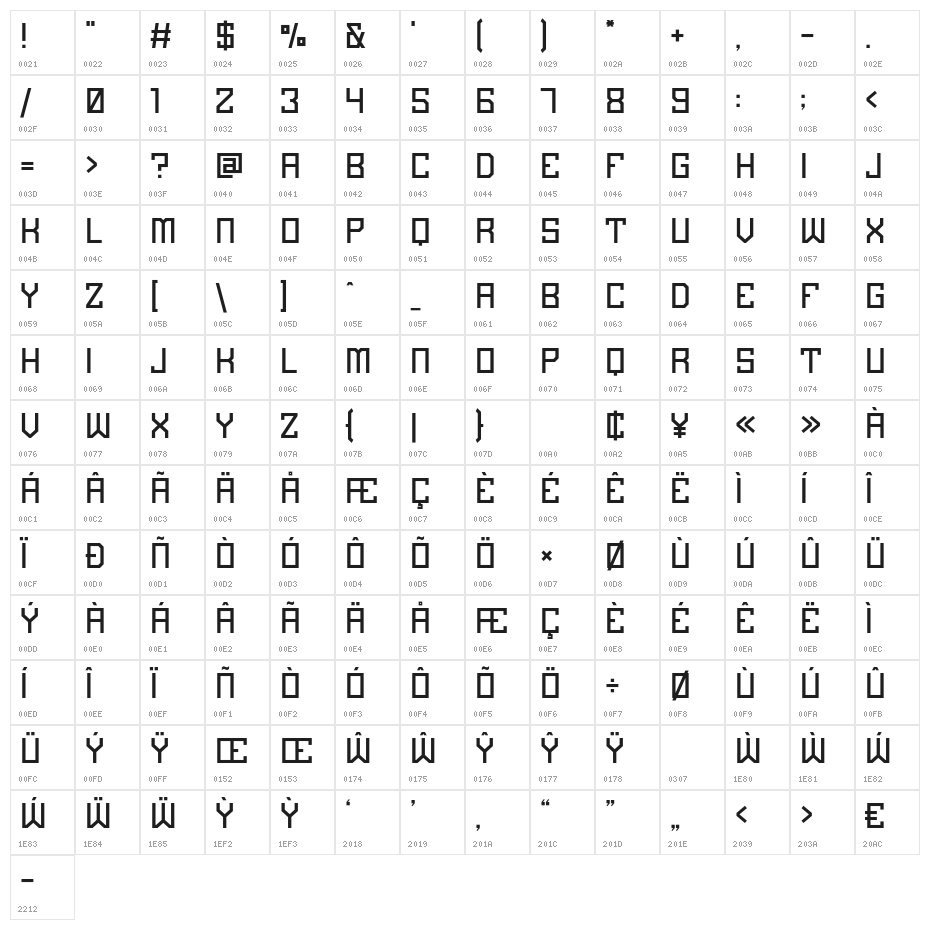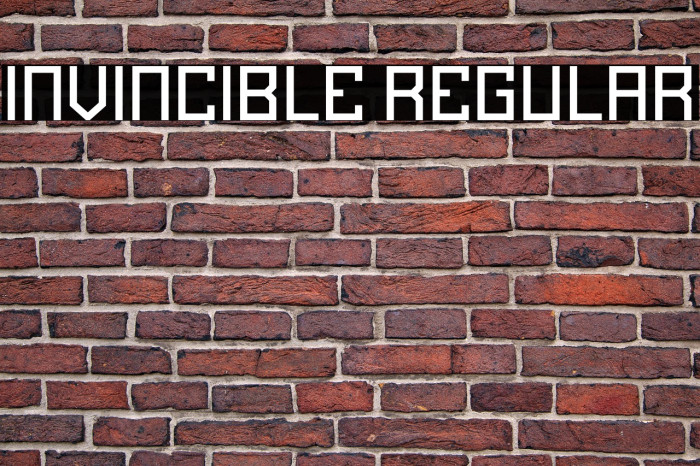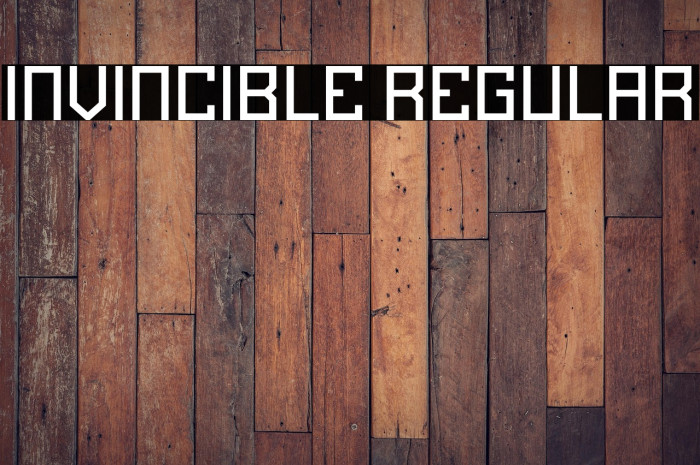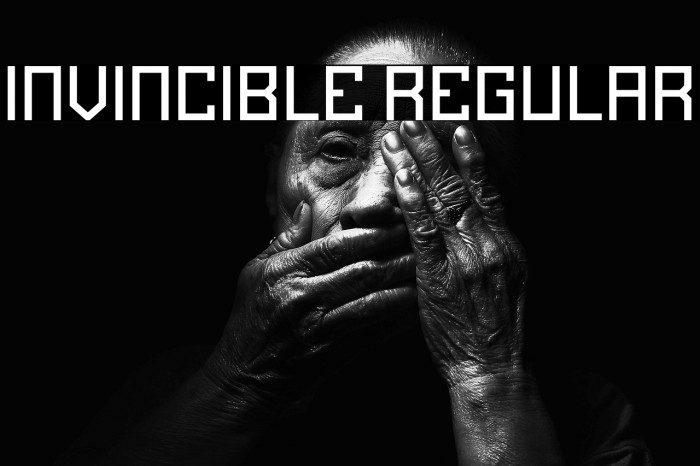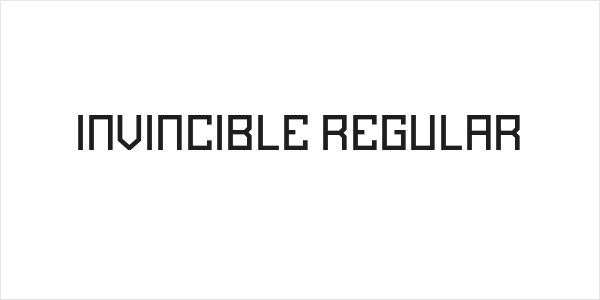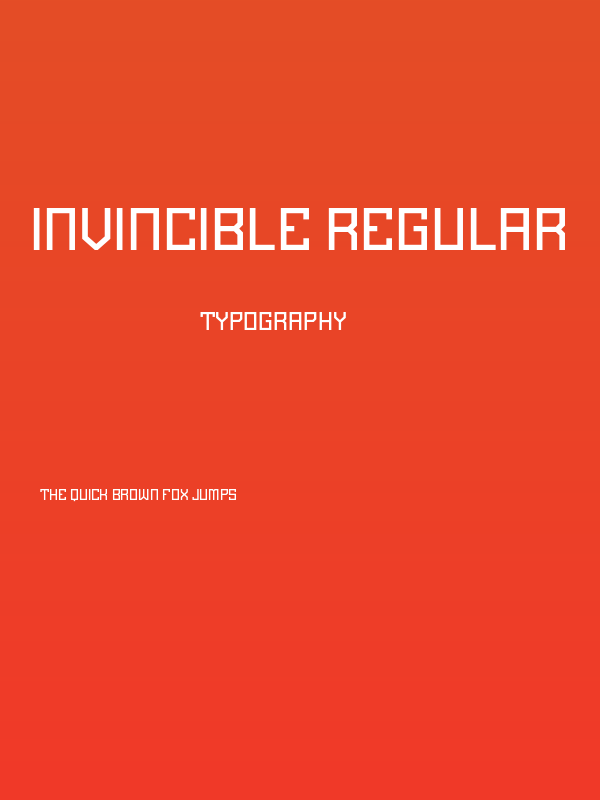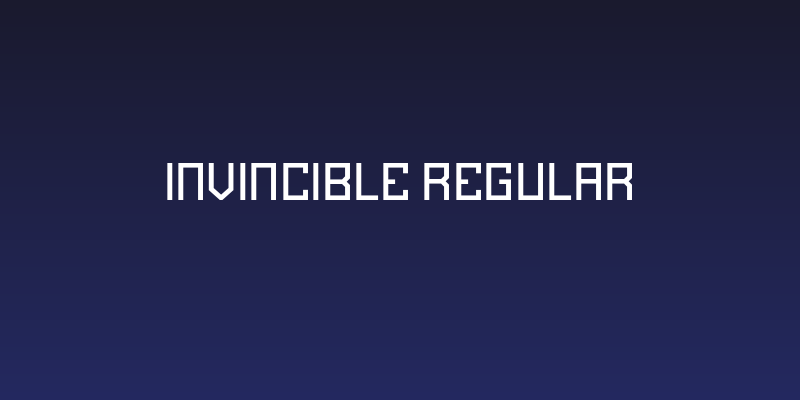
Invincible Regular Font
Invincible Regular Description
This font features a bold and geometric design, characterized by its blocky and angular letterforms. The uppercase and lowercase letters share a consistent structure, creating a cohesive and uniform appearance. The numerals and special characters maintain the same geometric style, enhancing the overall modern and futuristic aesthetic. The font's clean lines and sharp edges make it highly legible, even at smaller sizes. Its distinct style is suitable for projects that require a strong and impactful visual presence.
| Proposed Projects | Ideal for technology branding, video game titles, posters, and futuristic designs. |